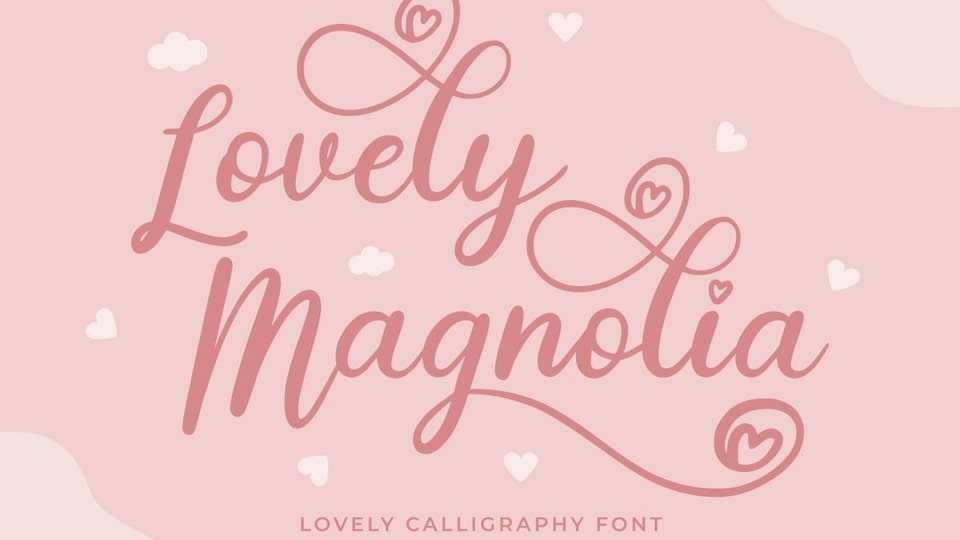
Download Lovely Magnolia font, a sweet typeface inspired by love that blooms in spring, made with real handwriting and looks very girly and beautiful.
Designer: Rissyletter Studio